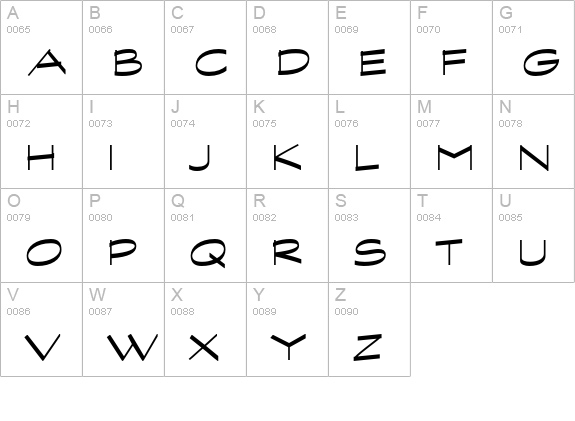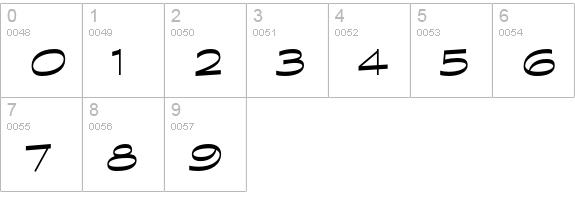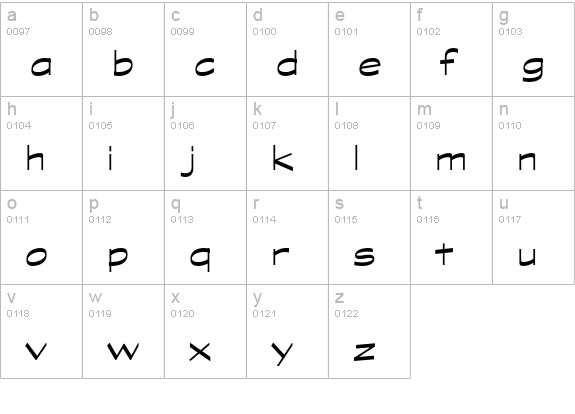
Graphite Std Wide Font Details
Graphite Std Wide is a distinctive, extended-width variant in the Graphite typeface family \xE2\x80\x94 well suited to design and typography projects.
Graphite Std Wide font is a modern and elegant typeface that exudes sophistication and professionalism. With its clean lines and wide letterforms, this font is perfect for a variety of design projects, from branding to editorial layouts. The Graphite Std Wide font is versatile and easy to read, making it an excellent choice for both print and digital applications. The best part? Graphite Std Wide font is completely free to download at FontsMarket.com. Whether you're a designer looking to add a stylish touch to your work or a business owner in need of a sleek and contemporary font for your branding, Graphite Std Wide font is the perfect choice. Download it today and elevate your designs with this stylish and versatile typeface.